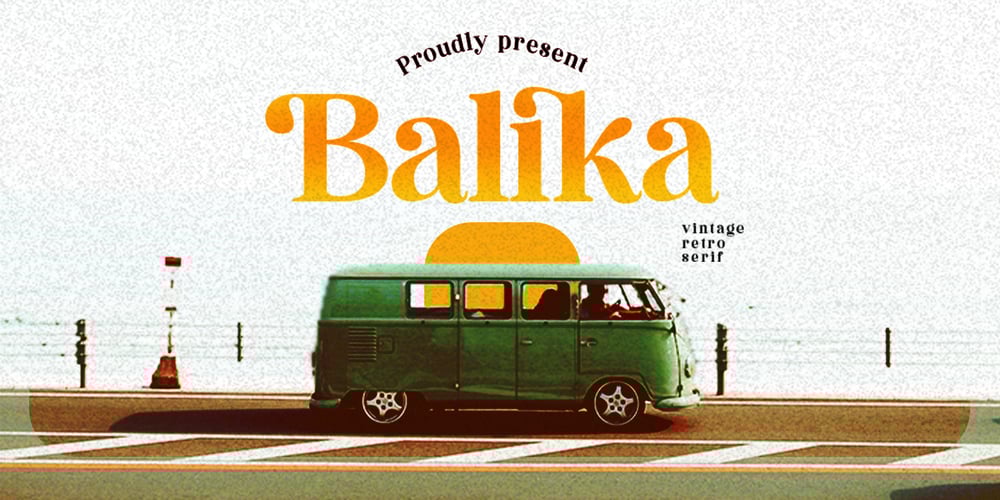
Balika
Balika font
Balika Font Family was designed by Amri Mauludin and published by ArimaType. Balika contains 1 styles and family package options. Balika is a bold, trendy, and thick lettered serif font. This font is suitable for many projects, for modern or even retro vintage design, branding, logos, crafting, stickers, sublimation, wedding invitations, and many more.